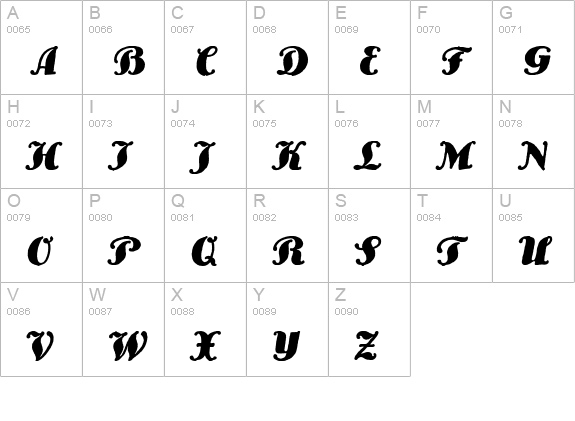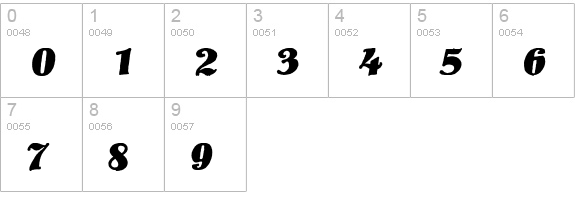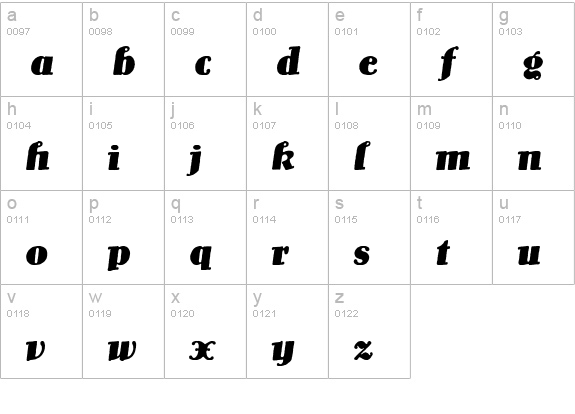
Louis-BoldItalic Font Details
Introducing Louis-BoldItalic font, a striking and elegant typeface that effortlessly combines boldness with a touch of sophistication. The italicized style adds a dynamic flair to any design, making it perfect for headlines, logos, and branding projects. With its strong presence and unique character, Louis-BoldItalic font is sure to make a statement wherever it is used. The best part? Louis-BoldItalic font is available for free download at FontsMarket.com. Whether you are a designer looking to add a touch of boldness to your creations or a business owner seeking a distinctive font for your brand, Louis-BoldItalic font is the ideal choice. Download it today and elevate your designs with this stunning typeface.